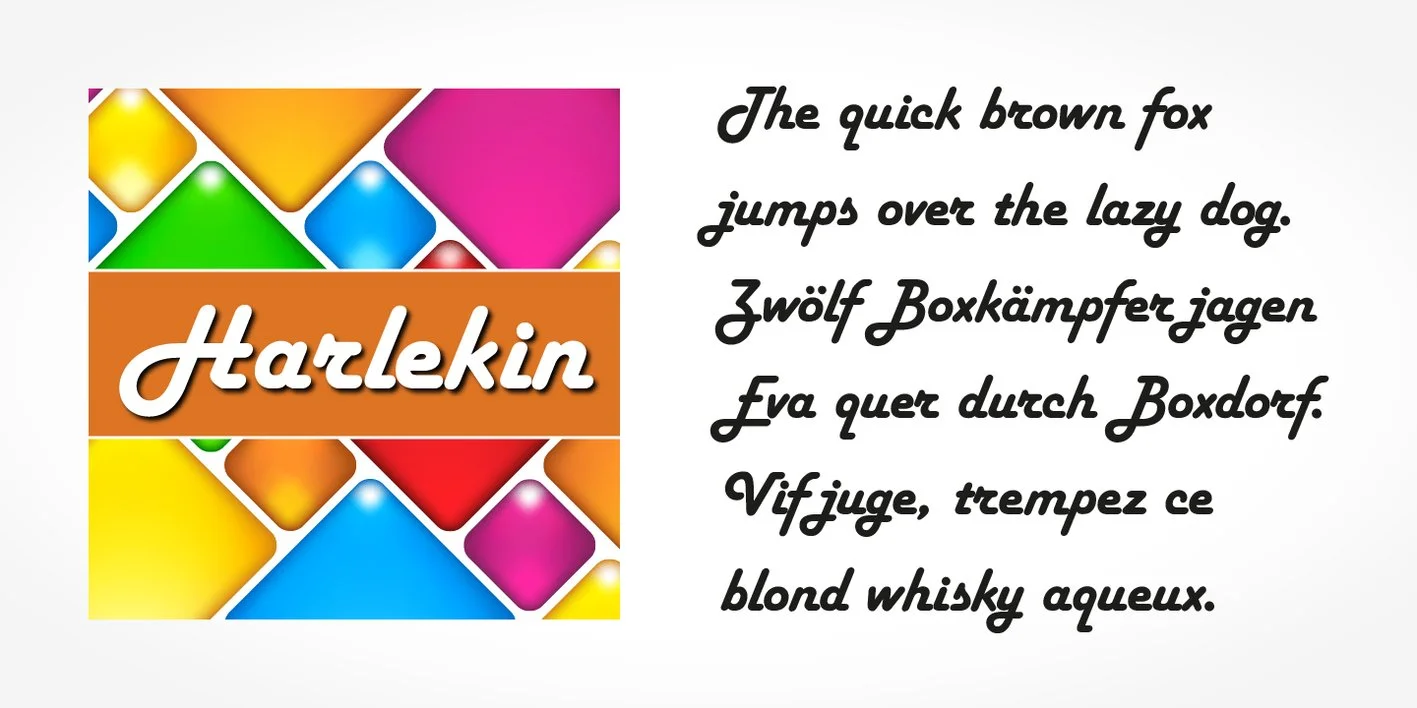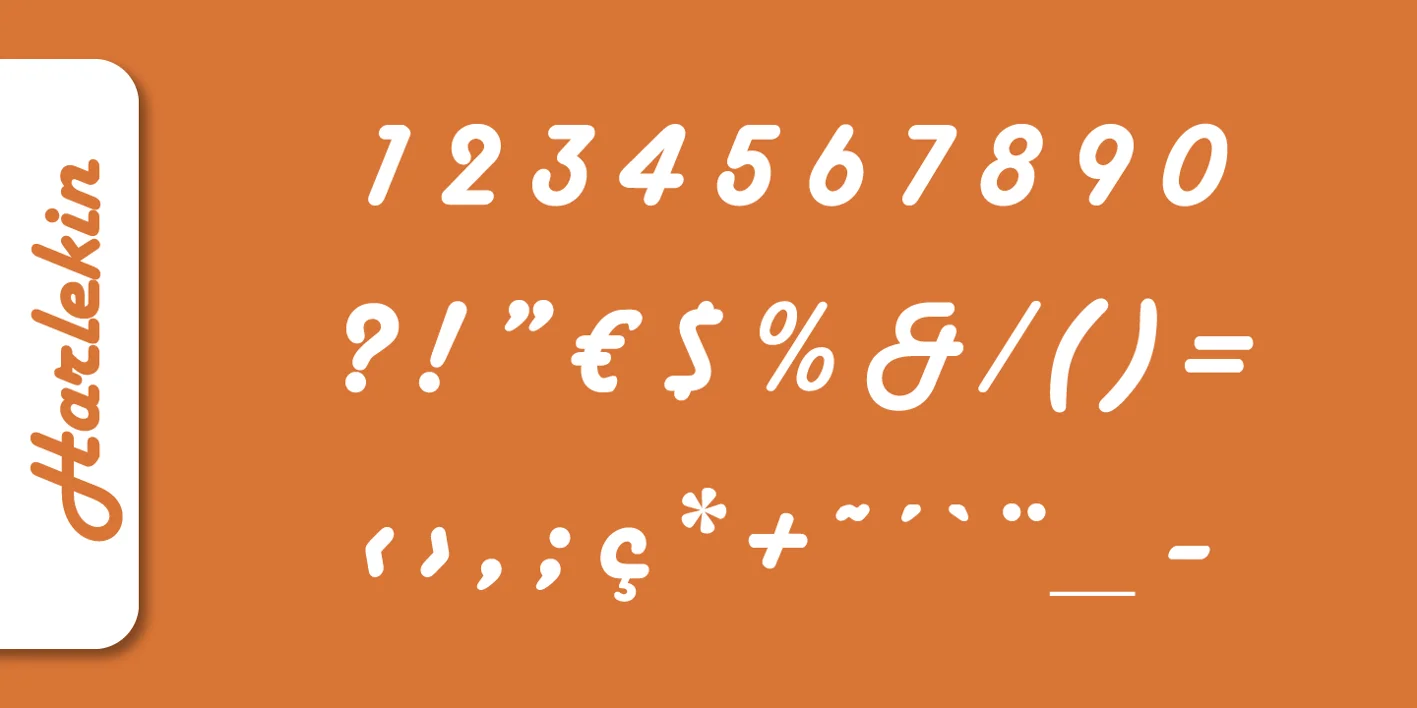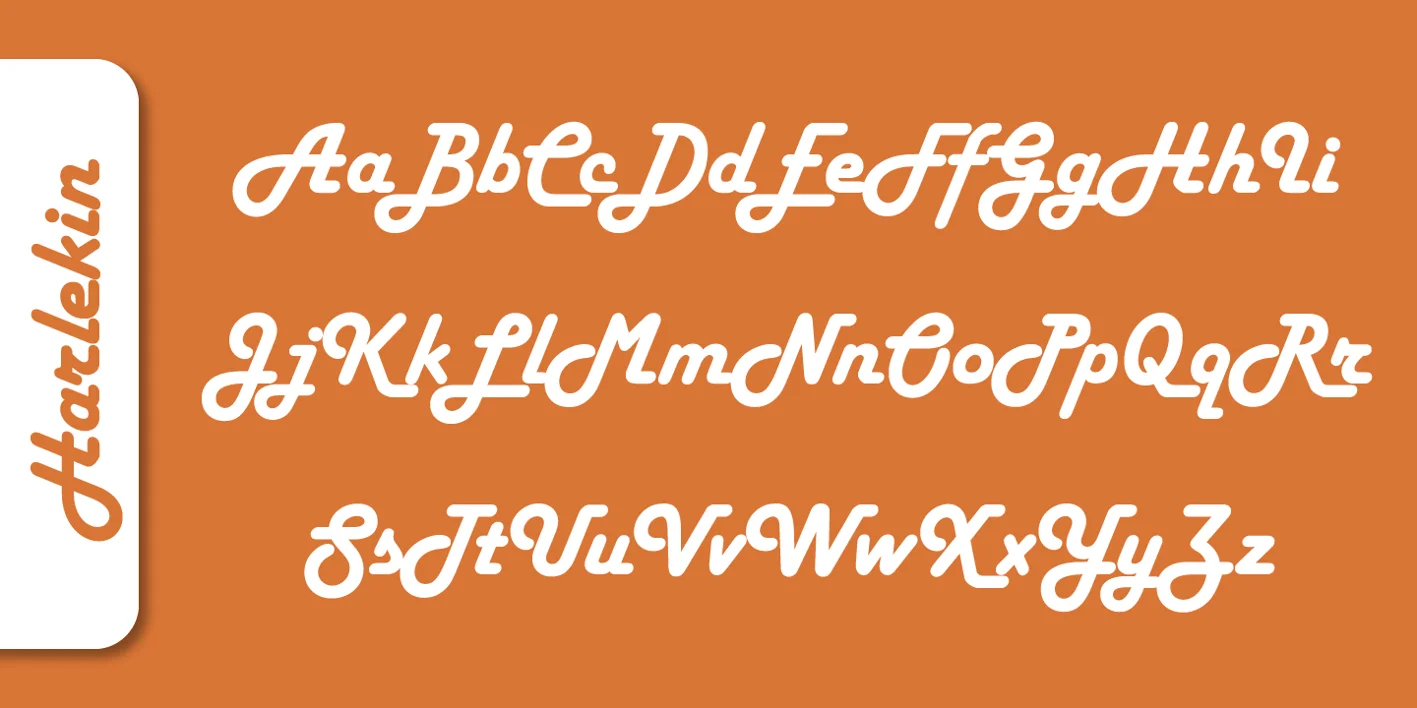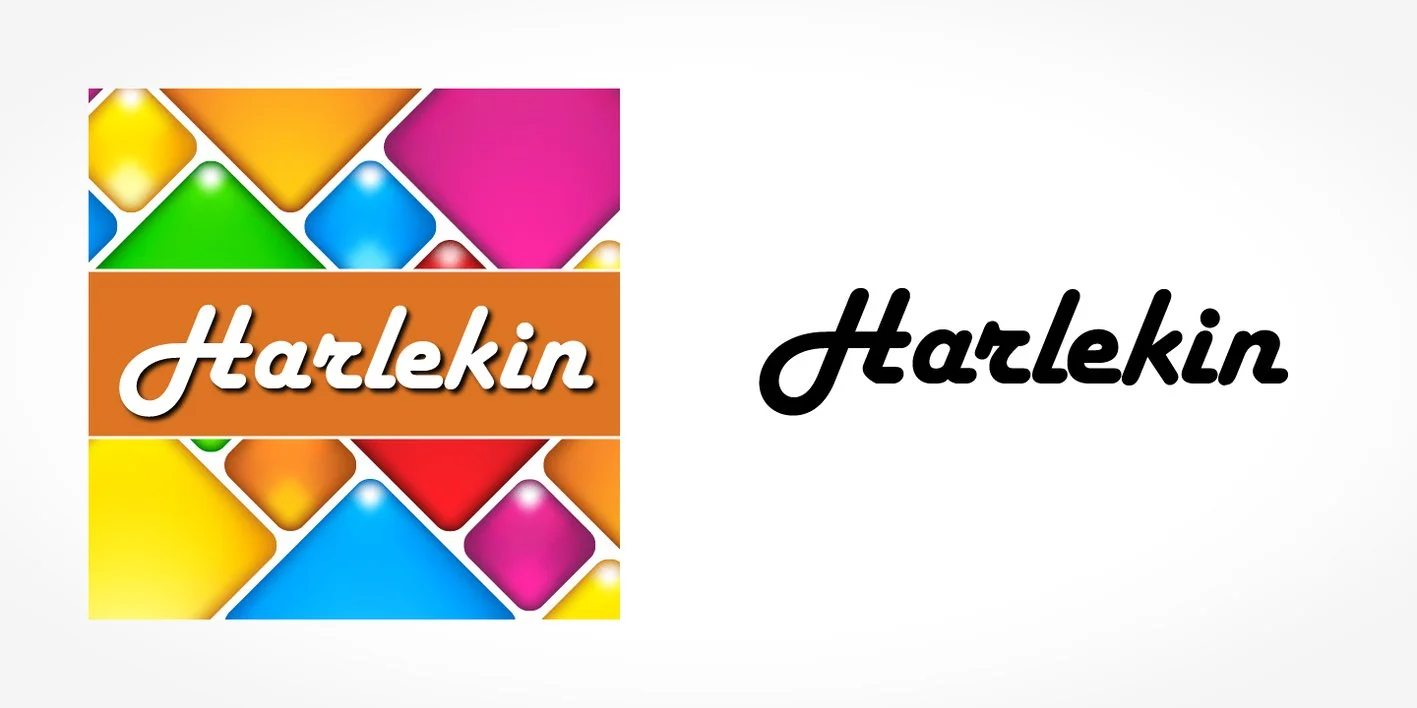
Harlekin Font
Typography shapes perception at a subconscious level. Harlekin leverages visual harmony and precise spacing to make every composition feel considered. The typeface brings a versatile sensibility to a broad range of creative disciplines, with controlled contrast that rewards close inspection that holds up whether the work is print-first or screen-first.
In practice, Harlekin proves particularly effective for web design, logo design, product labels, advertising campaigns, editorial layouts. Designers reaching for it find that the type decisions feel resolved rather than laboured — a useful quality when client timelines are tight.
The range of applications extends to social media graphics, brand identity systems, poster creation, packaging design. That breadth is deliberate: the proportions and spacing were stress-tested across a wide range of mock briefs before the typeface was finalised.
The proportions balance x-height, cap height, and ascender length to produce a face that reads confidently at body copy sizes without losing presence at display scale. Sidebearings were derived from visual rhythm testing rather than mathematical calculation alone.
Harlekin sits comfortably alongside both classic and contemporary typefaces in multi-font hierarchies. It takes direction rather than competing for attention — a quality that experienced designers know is harder to find than it appears.
In-house creative teams at consumer brands find Harlekin a reliable choice for projects that demand both personality and restraint. The design avoids the self-conscious quirkiness that dates quickly, settling instead for considered distinctiveness that holds up over time.